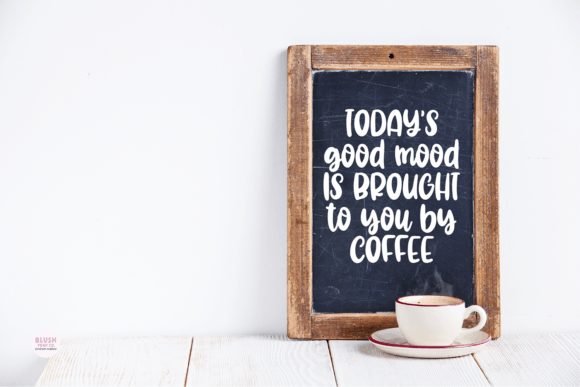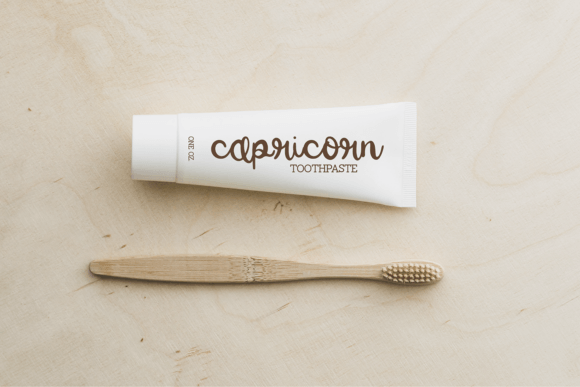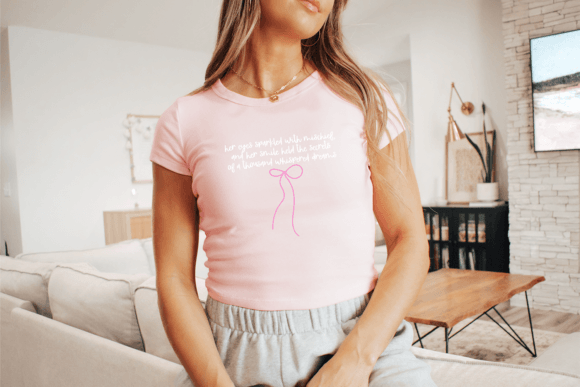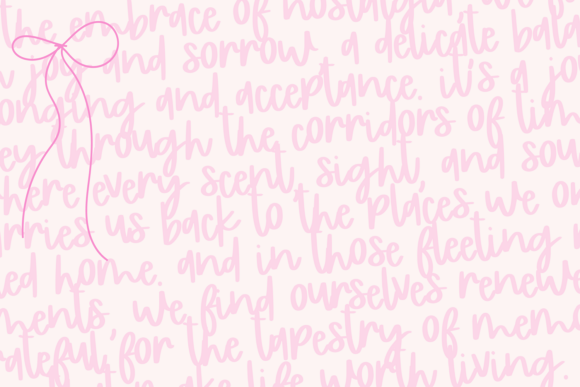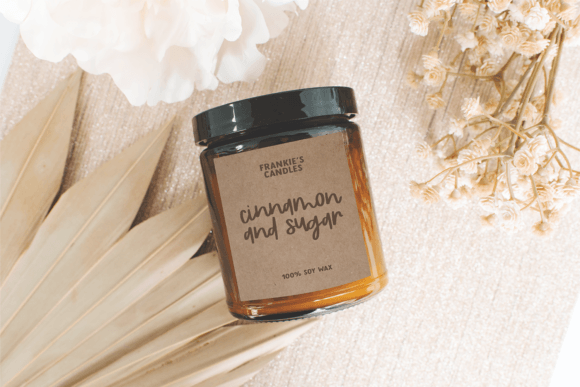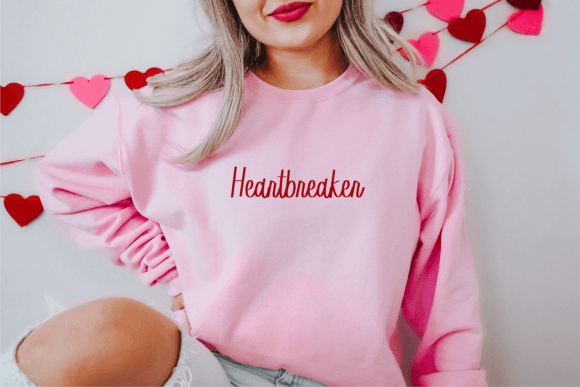
The Magic of Dainty Romance Script Bundle Font
Have you ever been in the middle of a design project, and suddenly, you’re stuck on finding the perfect font? I recall a particularly frustrating experience while working on a wedding invitation design. My client wanted something elegant, yet playful, and I was determined to deliver. That’s when I stumbled upon the Dainty Romance Script Bundle Font, and it completely transformed my design. In this article, we’ll dive into the enchanting world of this font bundle, exploring its features, uses, and what makes it a must-have for designers, crafters, and creative hobbyists.
A Personal Review: What I Love and What to Consider
- ✅ Elegant and versatile: The Dainty Romance Font Bundle offers eight beautiful fonts that can be used for a wide range of projects, from romantic wedding designs to playful invitations and branding.
- ✅ Mix of styles: This collection includes a mix of script, handwriting, and display styles, allowing you to add a personal and whimsical touch to your projects.
- ✅ Soft and artistic aesthetics: The fonts in this bundle have a soft, artistic quality that will add a touch of romance and elegance to your designs.
- ⚠️ Limited use for body text: While the fonts in this bundle are stunning, they might not be the best choice for body text due to their ornate nature.
The Story Behind Dainty Romance Script Bundle Font
The Dainty Romance Script Bundle Font was created with the intention of capturing the essence of romance and elegance in digital form. The designer aimed to craft a collection of fonts that would be versatile enough for various creative projects, from wedding designs to branding and advertising. By combining classic script styles with modern artistic elements, the Dainty Romance Font Bundle was born.